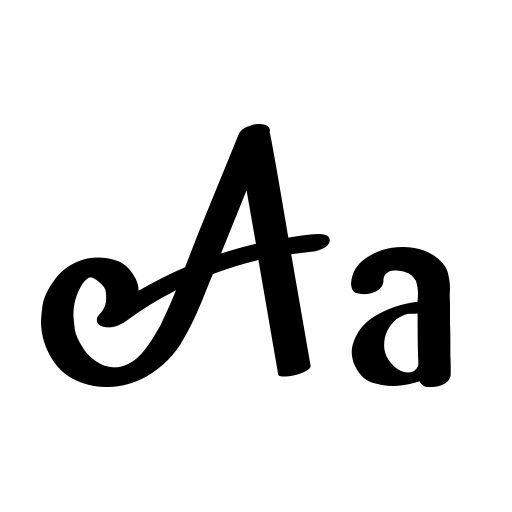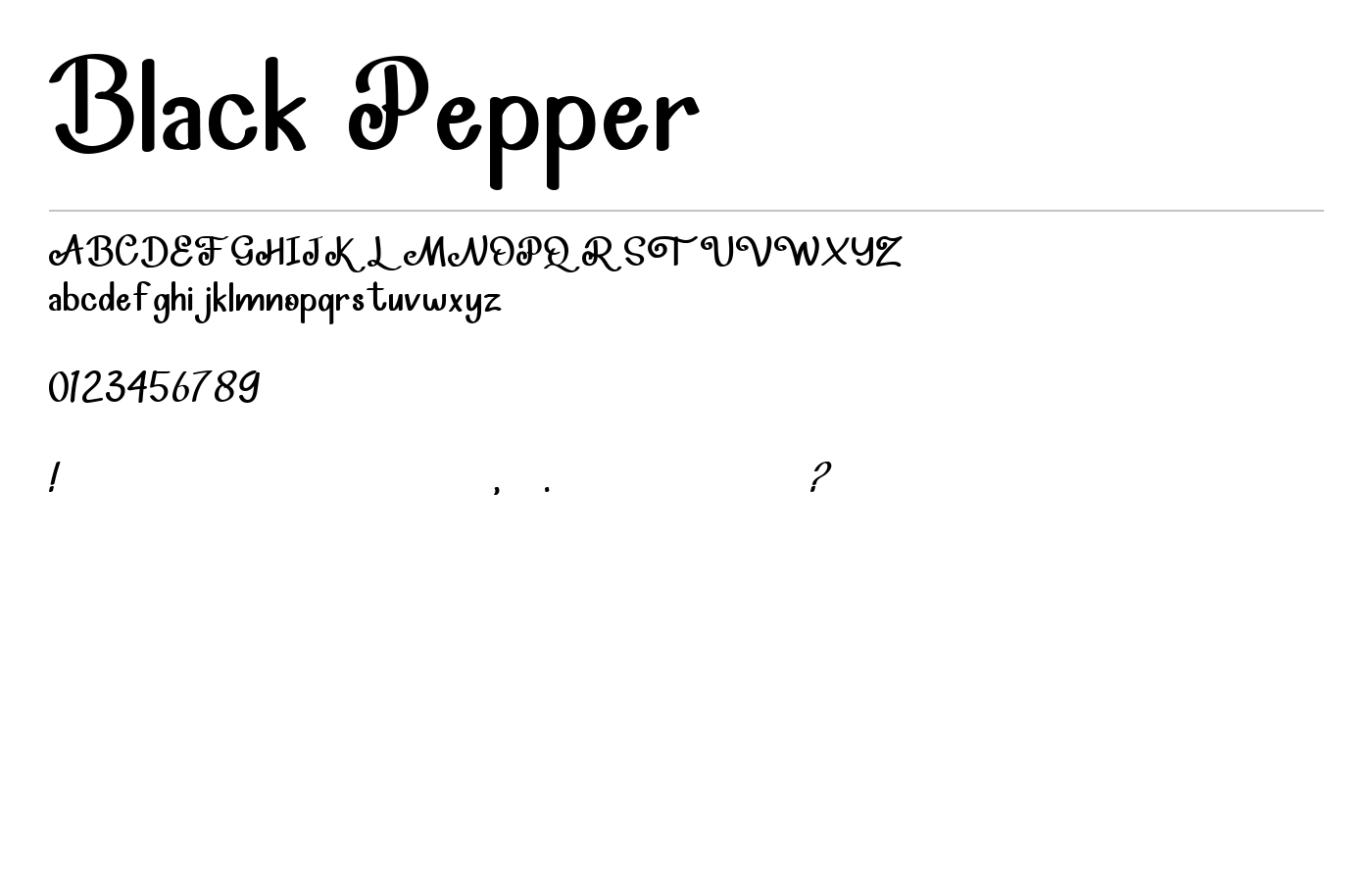
Black Pepper is a playful and decorative serif font with a quirky, handwritten feel. It features unique swirled and curled details on uppercase letters and a slightly condensed, medium weight structure that adds personality without sacrificing readability. This font is perfect for creative projects, invitations, logos, or branding that seeks a friendly and whimsical charm.
Black Pepper Font
About Black Pepper Font